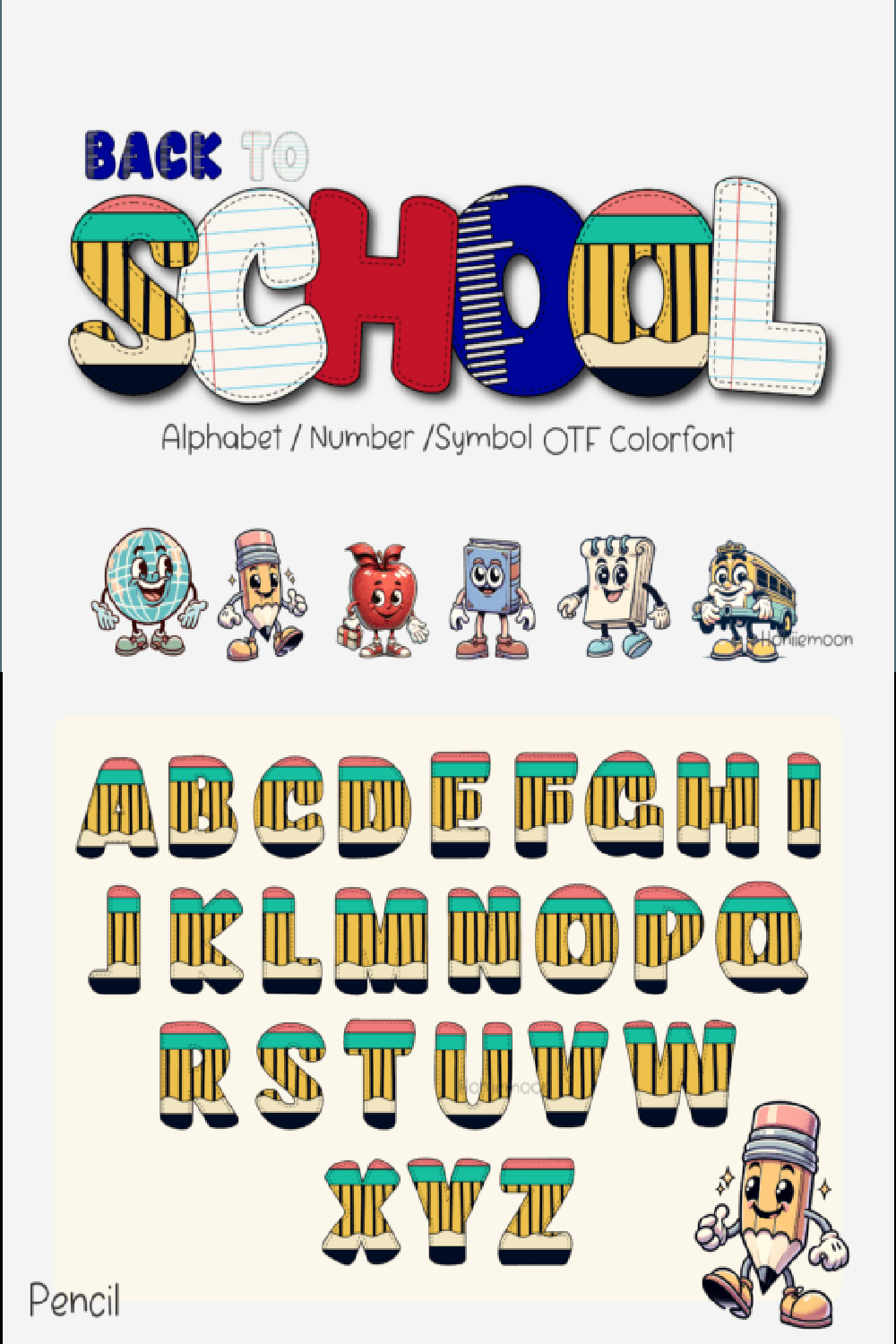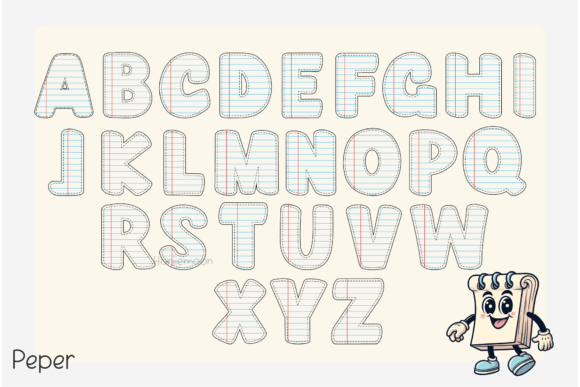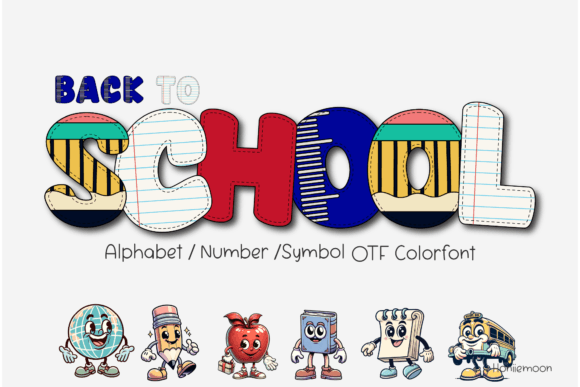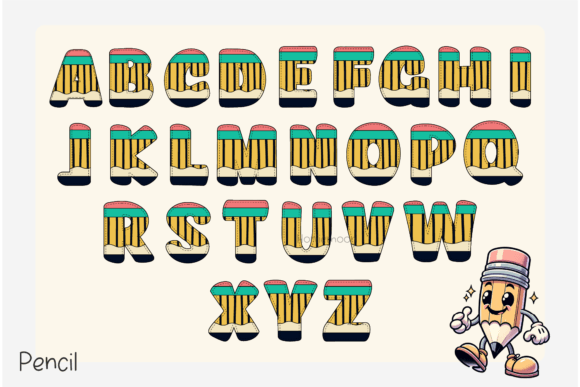
About the Back to School Font
The wait is over! The incredible Back to School Font is now available for your design toolkit. Back to School is a cute and colorful display font. It embodies playfulness and authenticity and is the perfect choice for any children activity or school project. Add this chunky lettered font to your designs and notice how it makes them come alive!